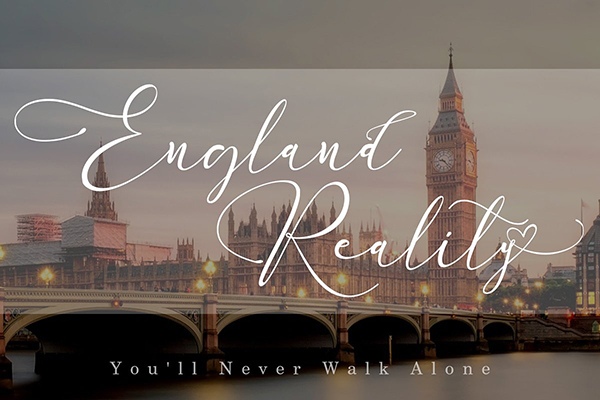
Aldedesign Font
Aldedesign Font is perfect for creative design agencies, contemporary art studios, innovative branding projects, modern architecture firms, cutting-edge advertising campaigns, and sophisticated portfolio presentations. Its distinctive character makes it ideal for graphic design consultancies, digital marketing agencies, creative workshops, design schools, artistic collaboratives, and any project requiring professional creativity with contemporary sophistication and innovative visual communication excellence.
This font is exciting because it represents the pinnacle of modern design thinking and creative innovation while delivering exceptional functionality across all contemporary media platforms. The expertly crafted letterforms demonstrate sophisticated understanding of visual hierarchy and typographic excellence, creating powerful communications that resonate with design-conscious audiences who appreciate artistic vision, creative excellence, and the transformative power of outstanding visual design.
The Aldedesign Font family typically includes Light, Regular, Medium, and Bold weights with creative alternates, designer ligatures, and innovative character variations that enhance its artistic personality. This comprehensive collection provides designers with versatile tools for creating sophisticated brand systems that maintain creative authenticity while offering flexibility for various design applications requiring artistic expression and professional excellence.
Whether you're developing identity systems for creative professionals, creating promotional materials for design conferences, or designing portfolios for artistic showcases, Aldedesign Font Free Download delivers the creative sophistication and design excellence that connects with artistic communities worldwide. Its inspiring presence ensures memorable brand recognition across digital platforms and print materials, making it perfect for websites, mobile applications, and creative campaigns that celebrate design innovation, artistic vision, and the powerful impact of exceptional typography in contemporary visual communication with uncompromising creative standards.